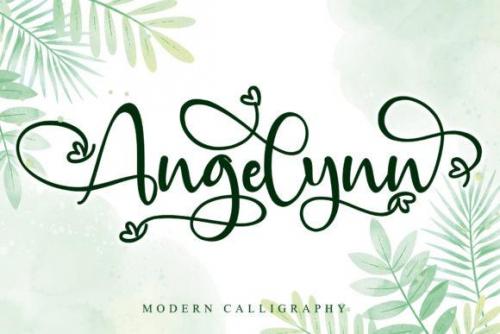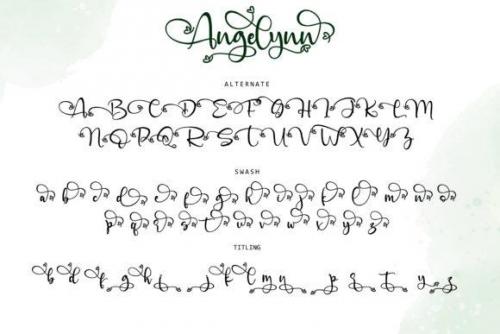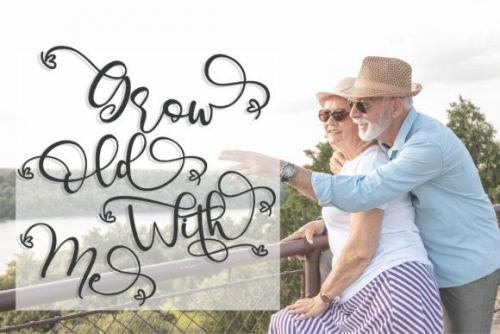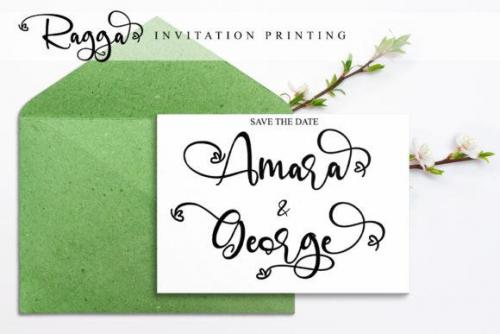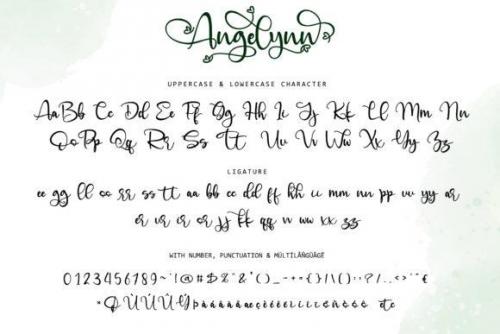
Angelynn Modern Calligraphy Script Font feels equally charming and elegant. It looks stunning on wedding invitations, thank you cards, quotes, greeting cards, logos, business cards and every other design which needs a handwritten touch.
This font is PUA encoded which means you can access all of the glyphs and swashes with ease! It features a varying baseline, smooth lines, gorgeous glyphs and stunning alternates.